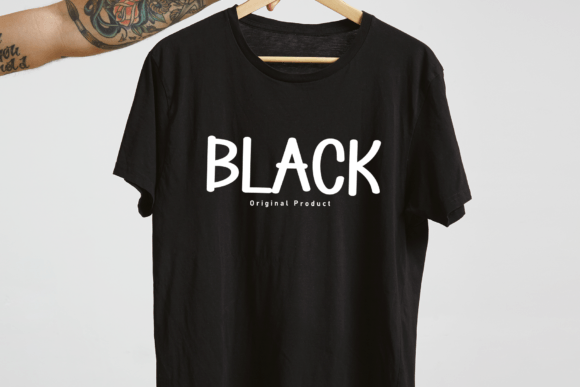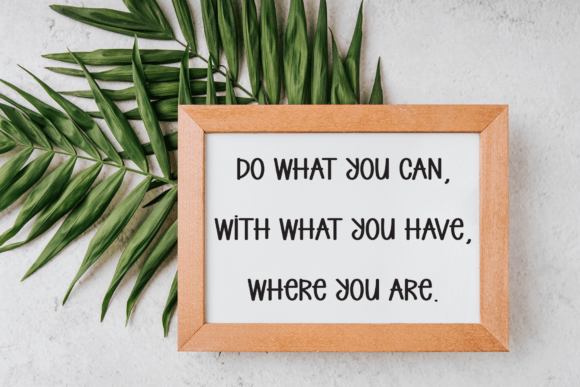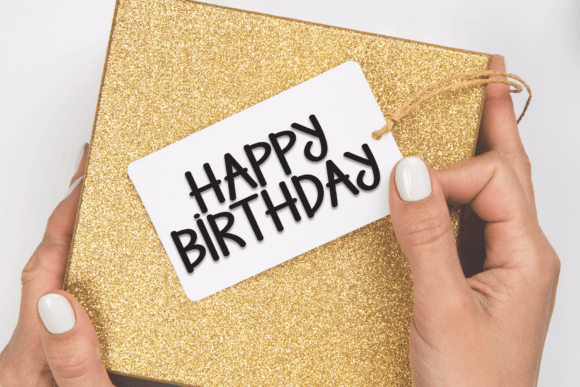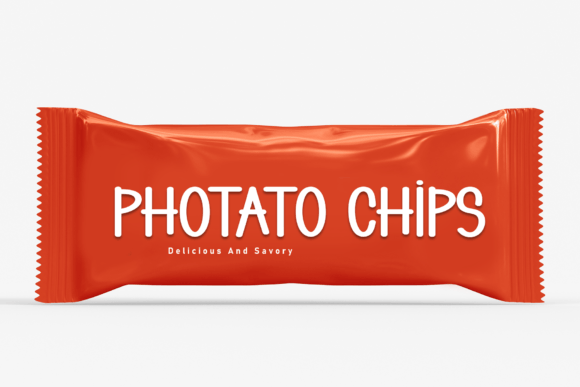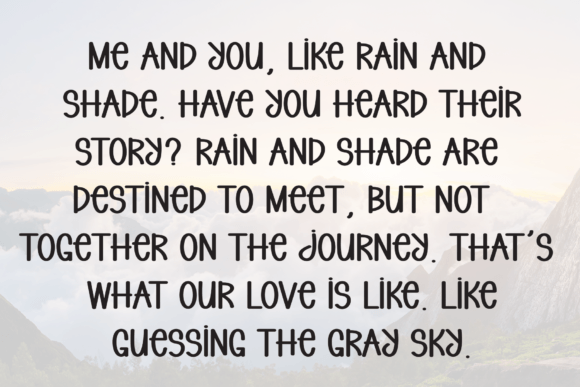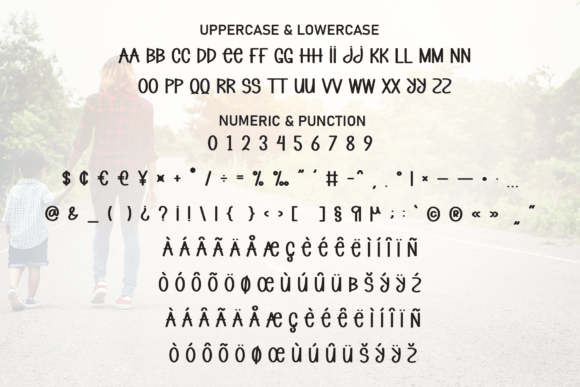
Introduction to Kind Avenue Font
Kind Avenue is a casual handwritten font that captures a relaxed and friendly vibe with its natural, flowing strokes.
Ideal for personal projects, social media, and invitations, it brings an effortless, charming touch to any design The fontโs easygoing style adds warmth and authenticity.
Key Features of Kind Avenue Font